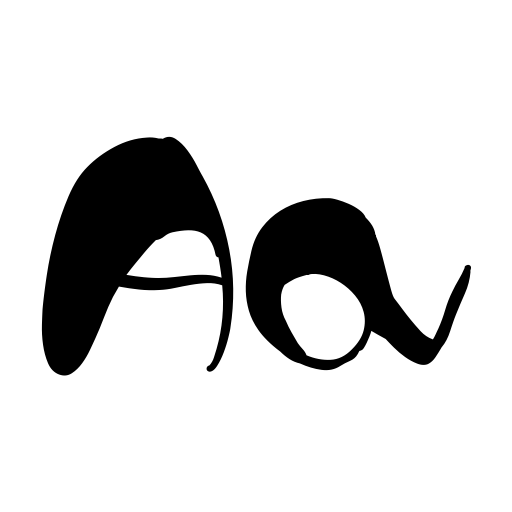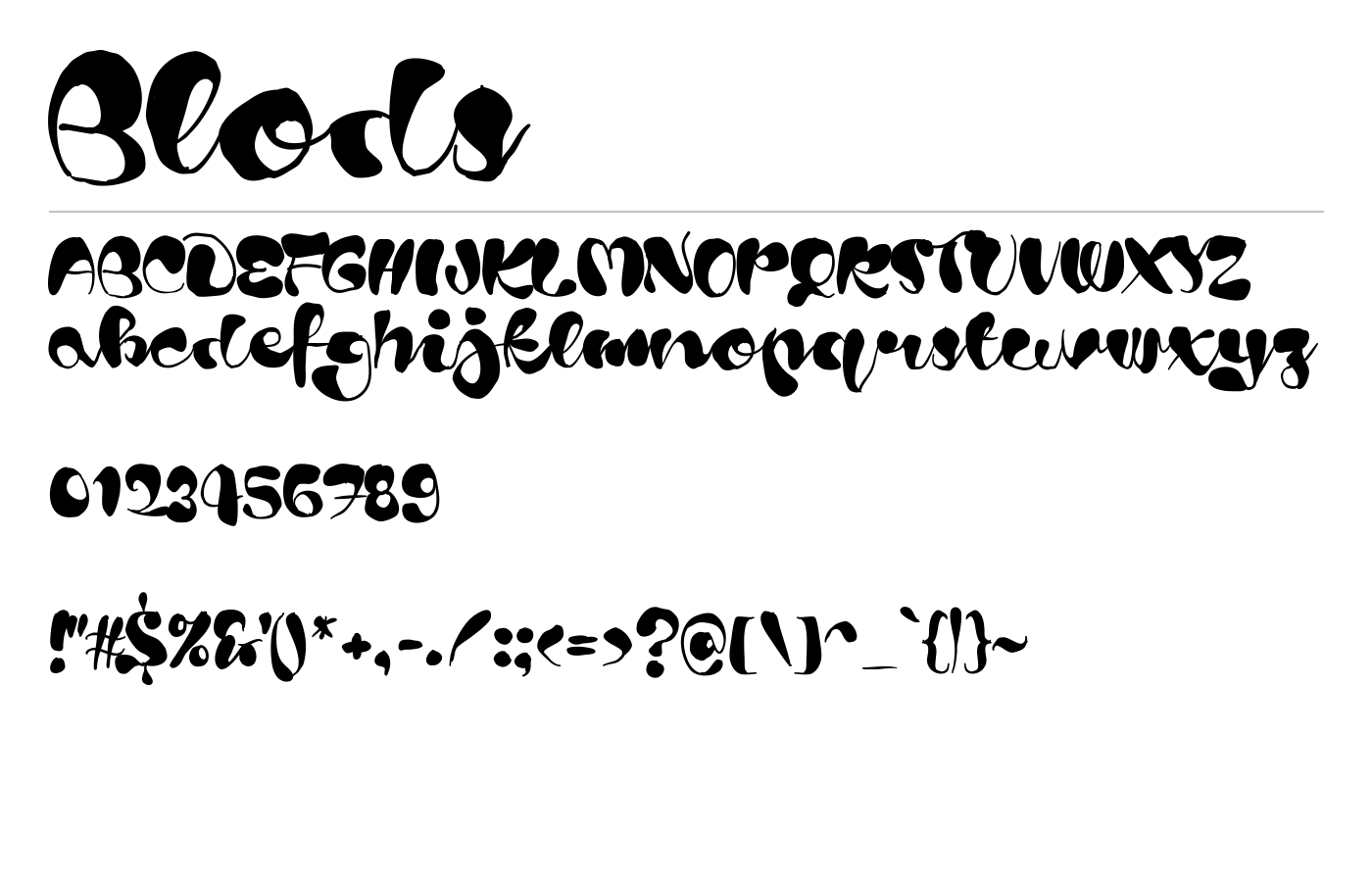
Blods Font is a bold, playful script typeface with fluid, brush-like strokes that give it a lively and organic feel. Its thick, irregular letterforms and high contrast between wide and narrow strokes create a dynamic, eye-catching style perfect for creative branding, posters, and artistic projects that want to communicate energy and personality. This font works well where a unique, handcrafted look is needed to stand out and make an impression.
Blods Font
About Blods Font
| Font family | Blods Font |
| Designer | Måns Grebäck |